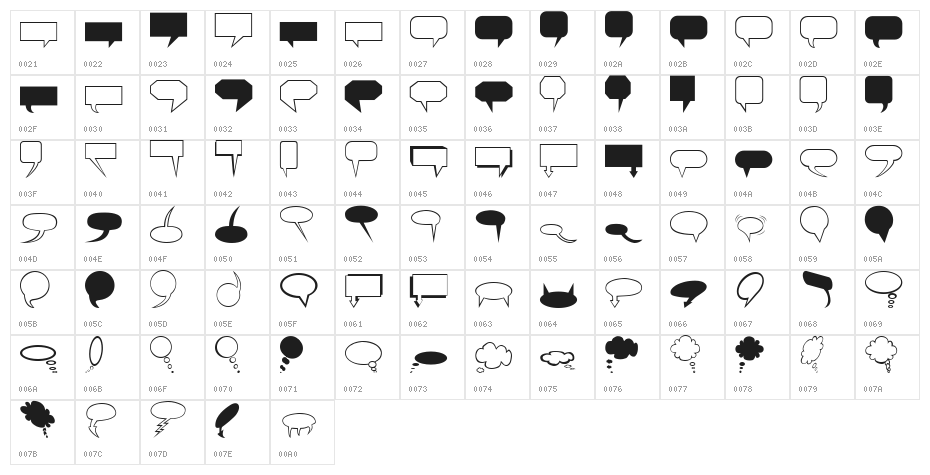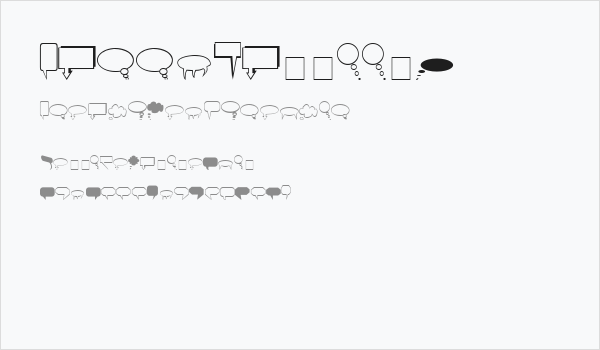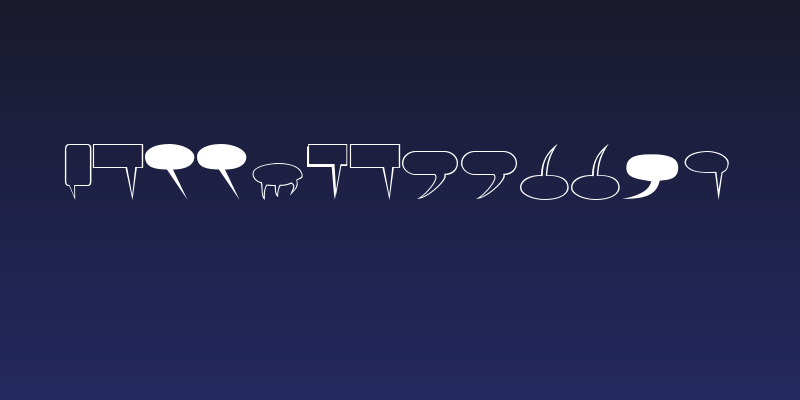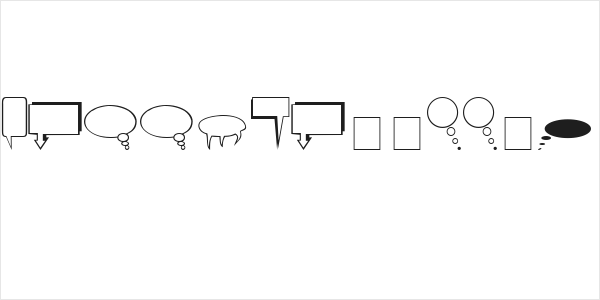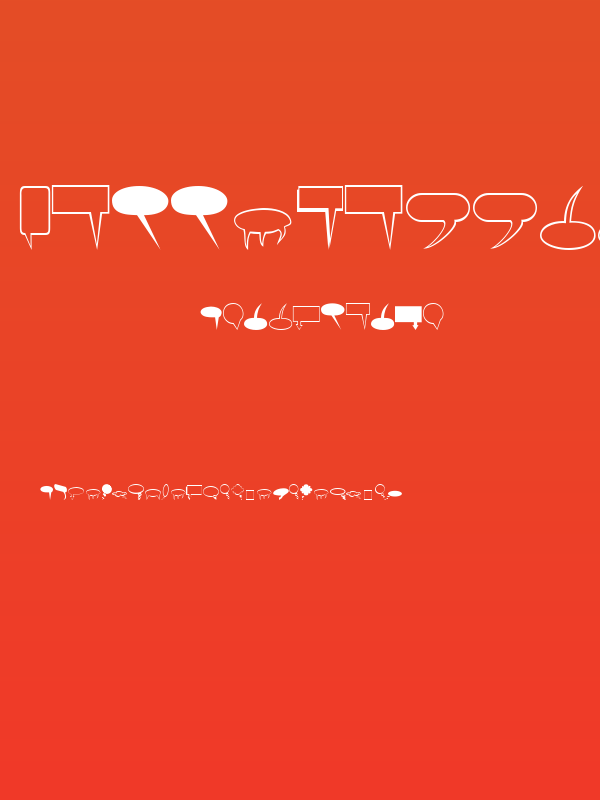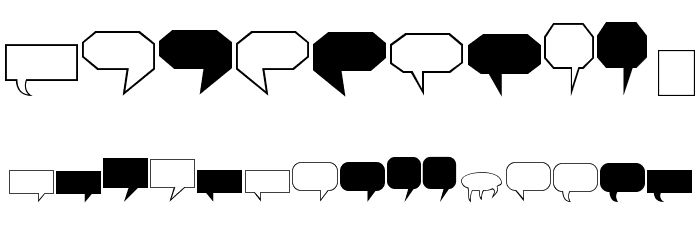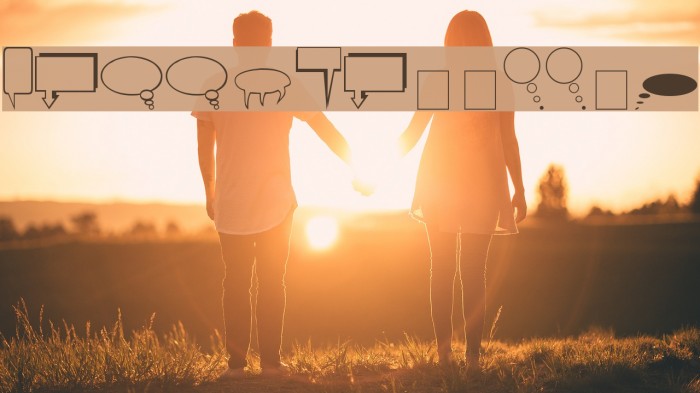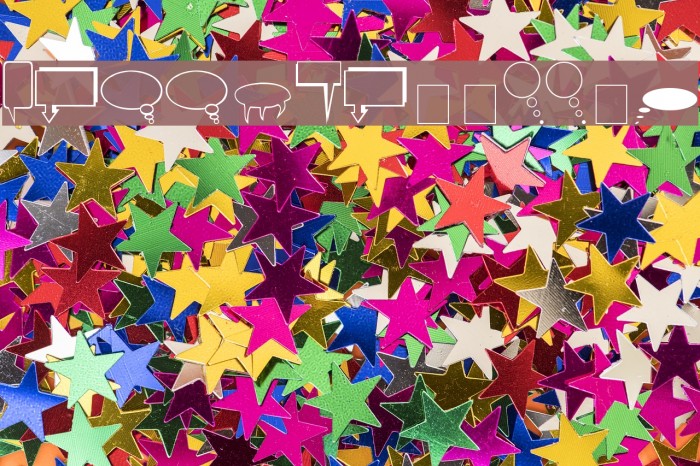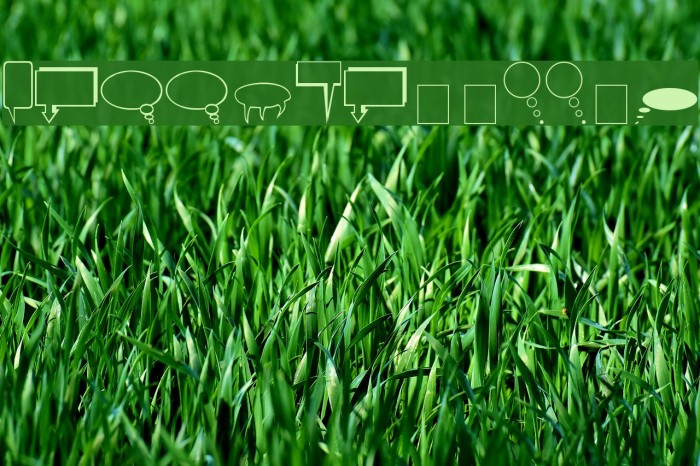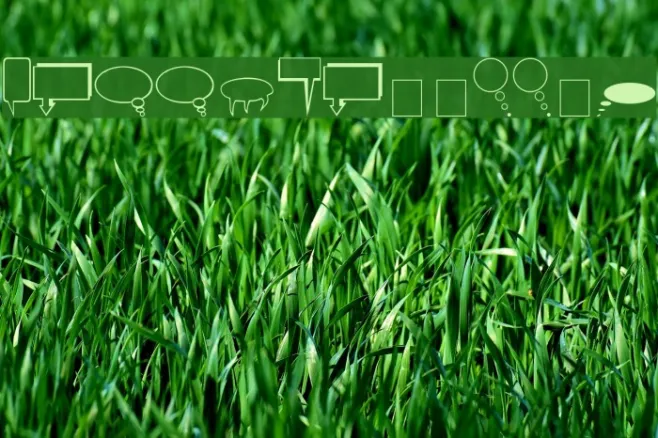
Carr Balloons Font
Carr Balloons Description
This collection features a variety of speech and thought bubble designs, each with unique shapes and styles. The bubbles range from classic rectangular and oval forms to more whimsical cloud-like and jagged designs. Some bubbles have bold outlines, while others are more delicate, offering a diverse range of options for comic book artists or graphic designers. The set includes both filled and outlined versions, providing flexibility in terms of visual impact and emphasis. These elements are perfect for adding dialogue or thoughts in creative projects, enhancing storytelling with visual flair.
| Use Case | Graphic design, Comics, Illustrations |
| Proposed Projects | Ideal for comic books, graphic novels, children's books, and creative design projects requiring dialogue or thought representation. |